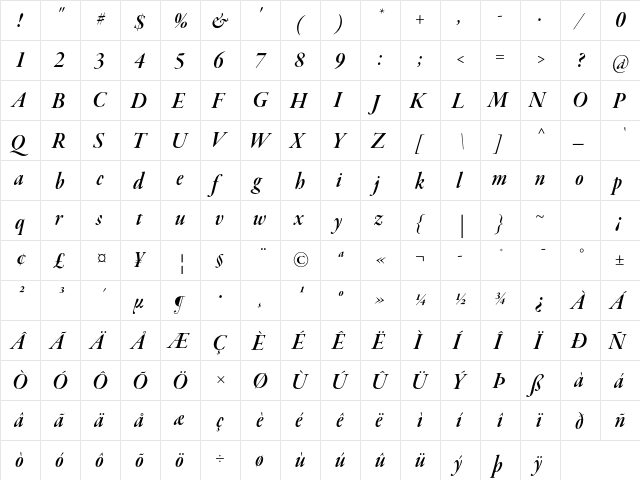
Garamond Premier Pro Semibold Italic Display Font Preview
| Designer | Robert Slimbach |
Design Context for Garamond Premier Pro Typeface
Garamond Premier Pro brings ornamental detail and strong personality to headlines and identities, where visual impact matters more than quiet functionality. Its italic angle brings a sense of urgency and motion to the letterforms. Its bold stroke weight gives it real presence on the page.
Font Pairing: Pair with a clean neutral sans-serif for body copy to let Garamond Premier Pro's character lead without overwhelming the composition.
Pro Tip: Use Garamond Premier Pro exclusively at display sizes — it was designed to be seen, not read at length. Let a neutral companion handle body copy.